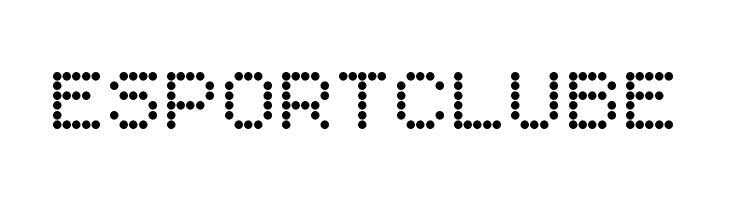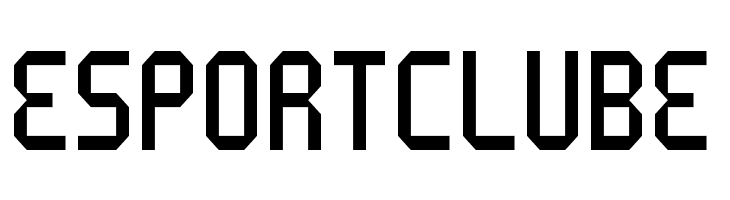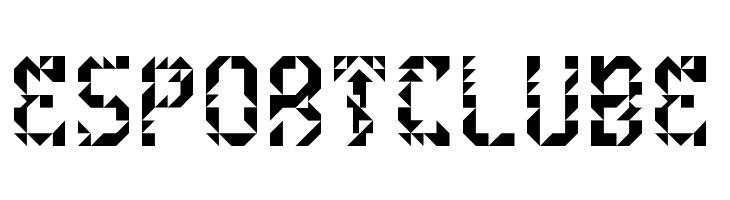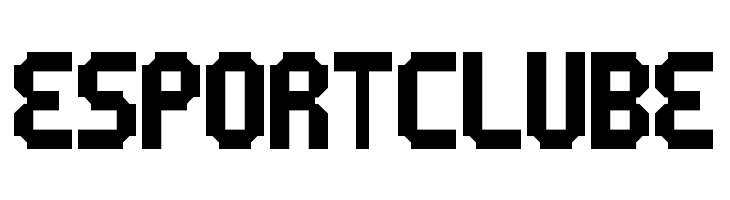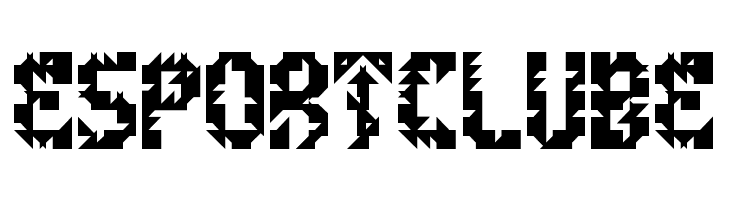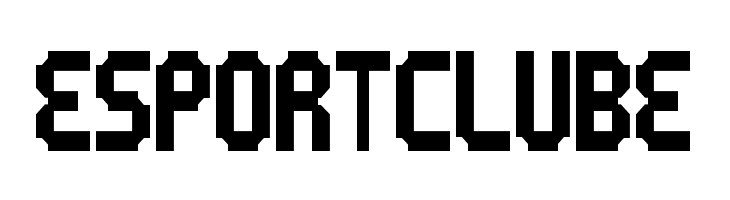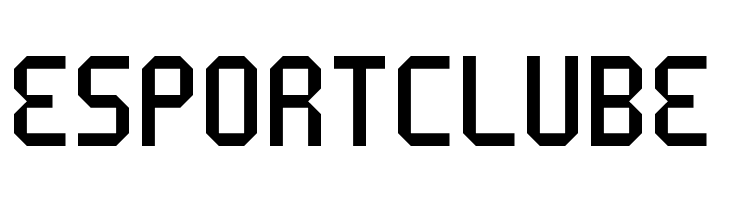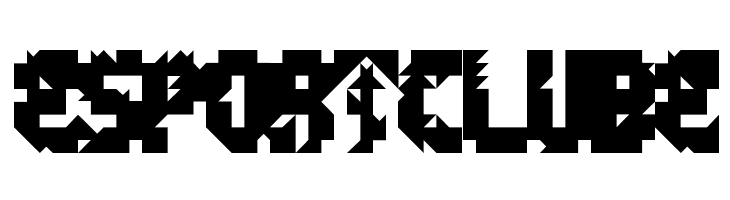
A geometric, futuristic font with blocky, angular letterforms and a digital aesthetic.
A futuristic, geometric font with sharp angles and clean lines.
A bold, geometric font with a pixelated, retro digital style.
A bold and decorative set of geometric symbols with high contrast and modern style.
A bold, geometric monospaced font with rounded edges and a modern style.
A geometric, modern font with bold, angular characters.
A bold, rounded font with a modern and playful style.
A dot matrix style font with a modern, digital aesthetic.
A bold, angular font with a futuristic, alien-like design.
A bold, geometric, and condensed font with a futuristic and industrial style.
A bold, geometric font with a modern, digital aesthetic.
A bold, angular font with a futuristic, alien-like design.
A bold, condensed, and geometric font with a modern industrial style.
A futuristic, geometric font with sharp angles and a blocky design.
A geometric, condensed font with a modern and minimalistic style.
A geometric, angular font with a modern and technical style.
A pixelated, geometric font with a retro digital display style.
A pixelated, retro-style font with a blocky, digital appearance.
A pixelated, blocky font with a retro digital aesthetic.
A modern, geometric sans-serif font with a bold and structured appearance.
A pixelated, monospaced font with a retro digital aesthetic.
A bold, geometric font with a maze-like, digital appearance.